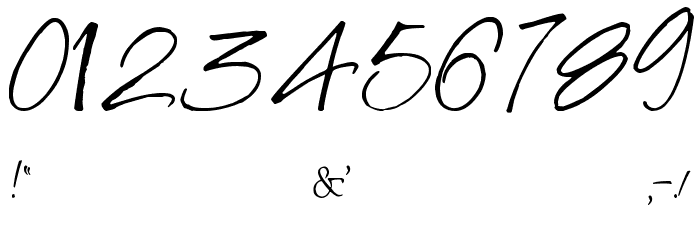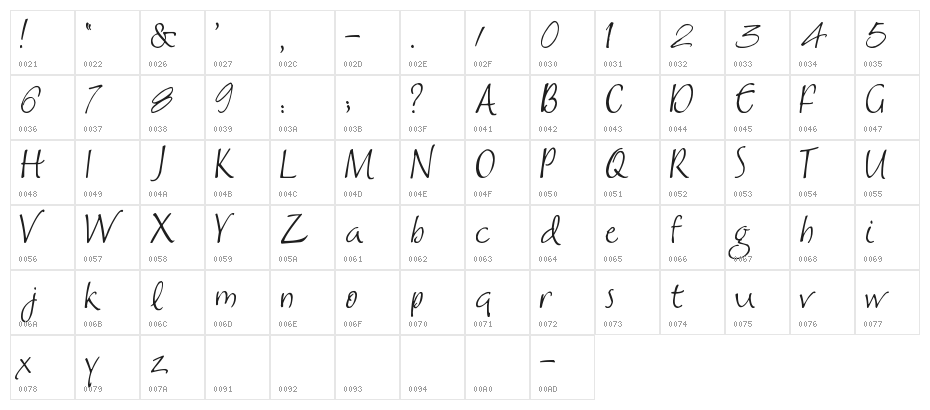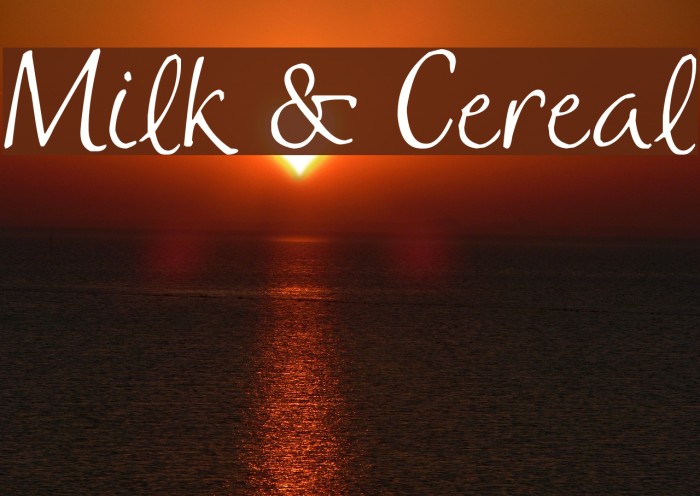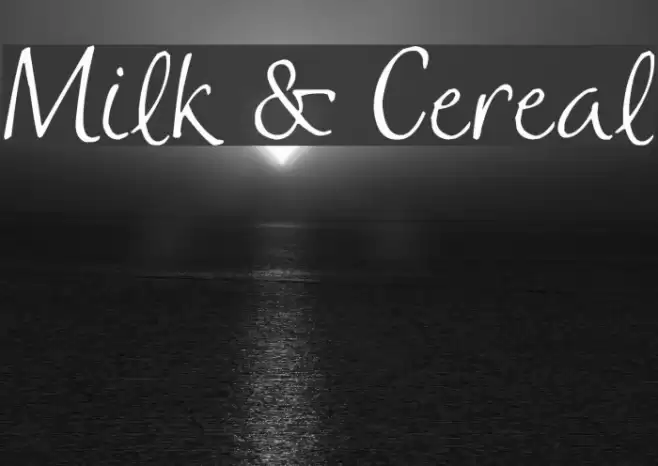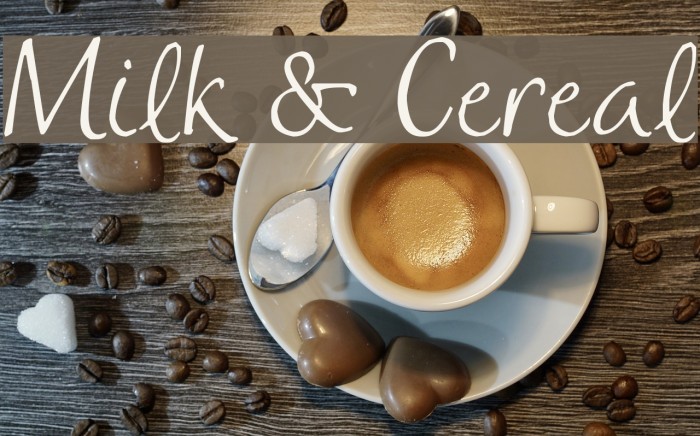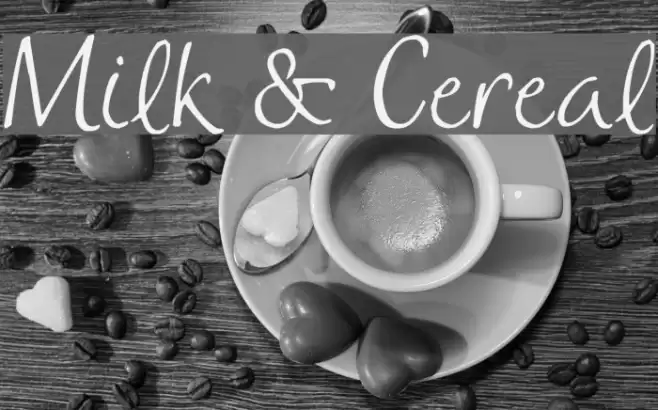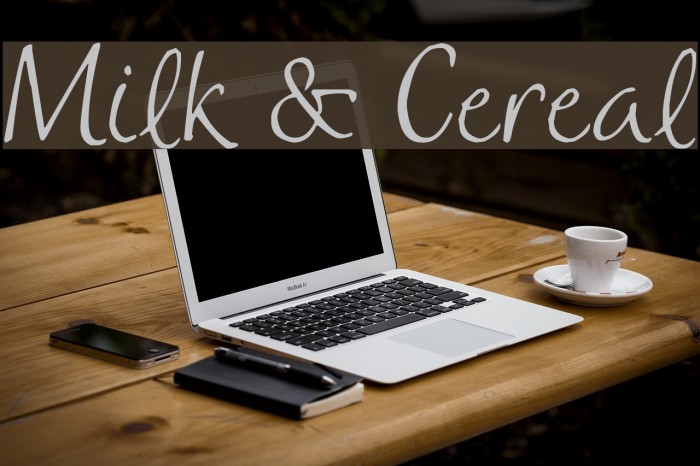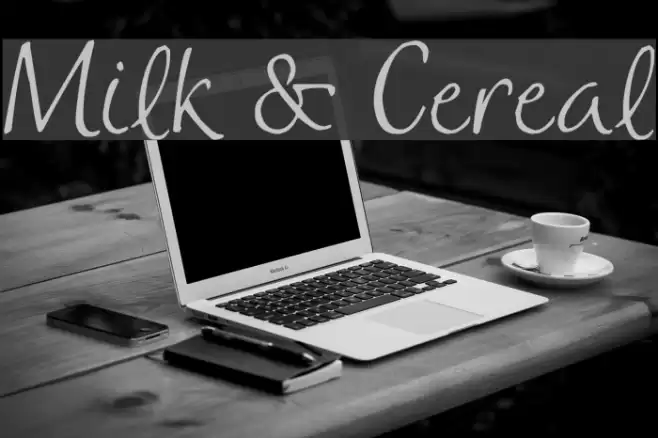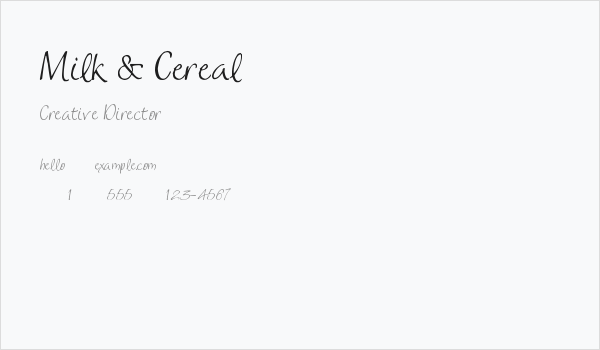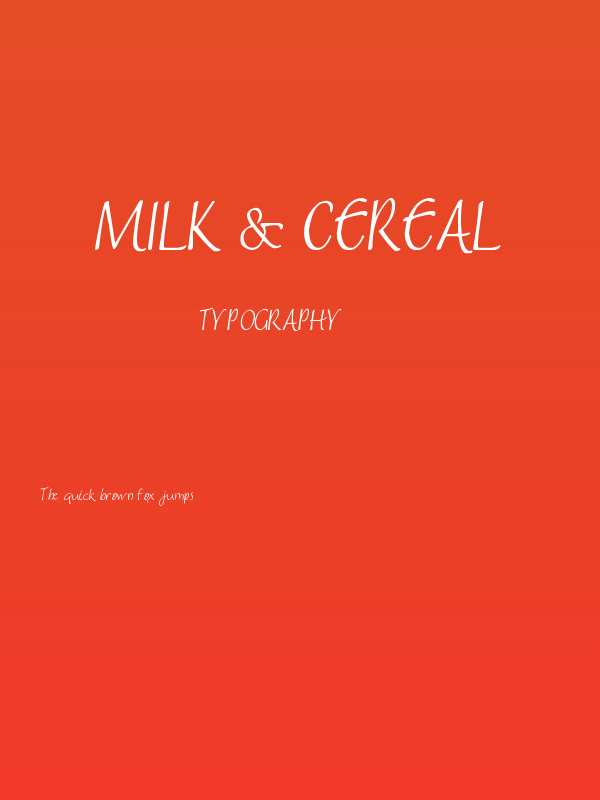
Milk & Cereal Font
Milk & Cereal Description
This font features a dynamic and flowing script style, characterized by its elegant and slightly slanted letterforms. The strokes are smooth and fluid, giving it a handwritten appearance that is both casual and sophisticated. The uppercase letters are bold and prominent, while the lowercase letters maintain a consistent rhythm and balance. The numerals are clear and easy to read, complementing the overall aesthetic. Special characters are thoughtfully designed to match the script's fluidity, adding versatility to its use. The font's organic and lively nature makes it suitable for projects that require a personal touch.